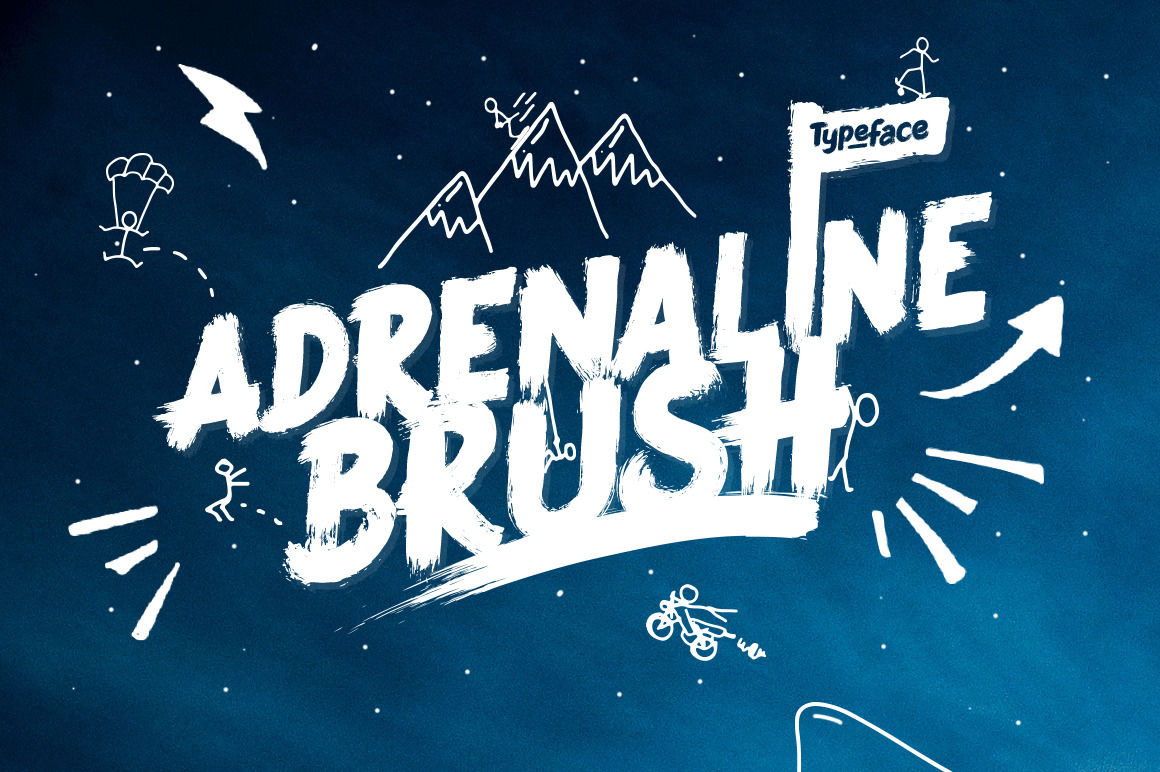
Adrenaline Brush Typeface
Are you ready for a hit of Adrenaline Brush! A typeface that has no fear or no limit to what it can be used for. Bold and exciting, it'll add some awesome personality to your design work.
Adrenaline BrushComes with 2 versions of the upper / lowercase / numerals, so that you can get that genuine hand brushed look.
1. Adrenaline Brush For those with OpenType supported programmes can access the alternative characters from inside this one.
2. Adrenaline Brush Alternative For those without access to Opentype. Upper & Lowercase plus numbers.
- Extensive range of punctuation & symbols
- Western, Central & Southern European Characters